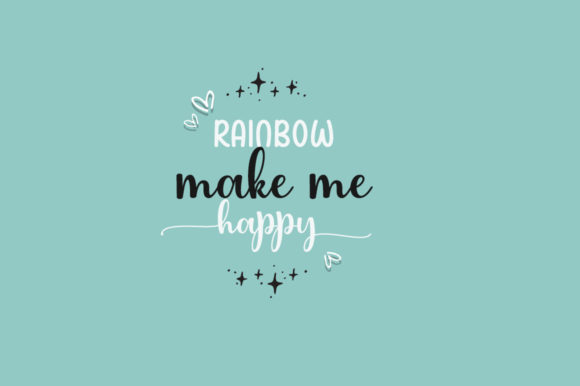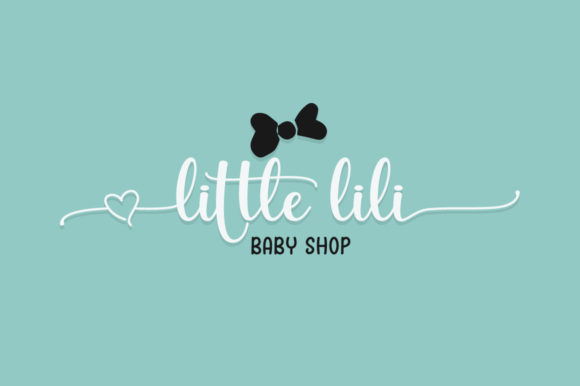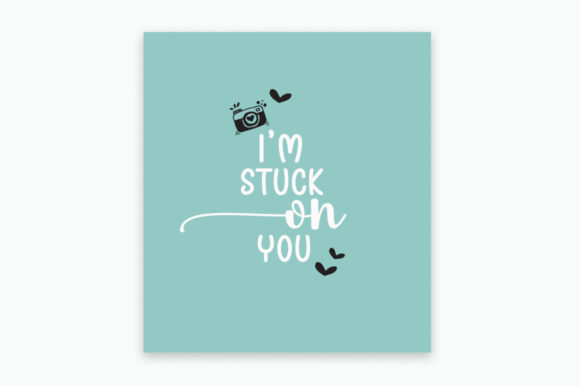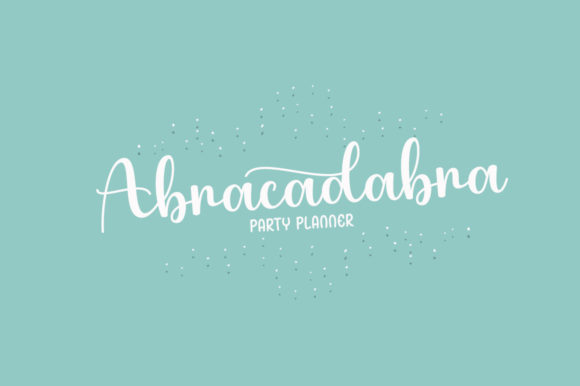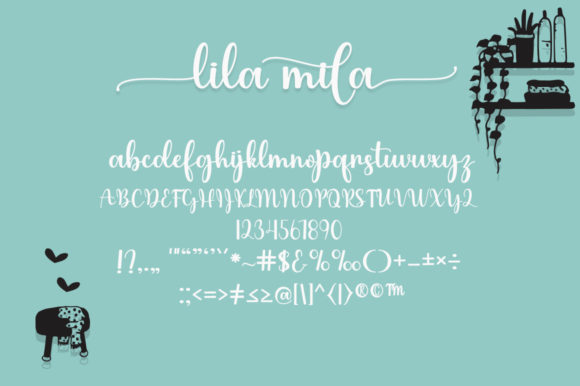
Introduction to Lilamila Font
As a designer, there’s nothing quite like the thrill of staring at a blank canvas, waiting for inspiration to strike. You’ve got a creative project in mind, but the perfect font is still elusive. That’s where the Lilamila Font comes in – a luxurious duo font that combines the elegance of script with the sophistication of sans serif.
Whether you’re working on a high-end branding project or a beautiful wedding invitation, the Lilamila Font is the perfect design resource to elevate your work. Its PUA encoding makes it easy to access all the amazing glyphs and ligatures, giving you complete control over your creative vision.
Key Features of Lilamila Font
- High-quality design for creative projects: The Lilamila Font is perfect for designers and artists looking for a unique and stylish font to enhance their work.
- Large character set: The Lilamila Font includes a wide range of characters, including Latin, Cyrillic, and Greek alphabets, making it suitable for a variety of languages.
- Unique, hand-drawn style: The Lilamila Font features a distinctive, hand-drawn style that adds a touch of elegance and sophistication to any design project.
Honest Review: Lilamila Font
As a designer, I’m always on the lookout for high-quality fonts that can elevate my creative project. Recently, I came across the Lilamila Font, and I was excited to give it a try.
What works well is the font’s versatility – it’s perfect for creating a playful, yet elegant feel in my designs. The Lilamila Font is available for free download, which is a definite bonus. I appreciate how transparent the background is, making it easy to layer and blend with other design elements.
- ✨ High-quality design with crisp lines and smooth curves
One limitation I noticed is that the font may not be suitable for formal or corporate projects, as it leans more towards a whimsical feel. Additionally, some characters may require tweaking for optimal display on certain screens.
Overall, I’m impressed with the Lilamila Font. While it may have its limitations, it’s a fantastic choice for creative projects where you want to add a touch of personality and charm. I’d definitely recommend it as a design resource for any project where a playful feel is desired.
Lilamila Font is a high-quality, free download design resource ideal for creative projects. Its transparent background makes it perfect for overlaying text on images or creating visually appealing graphics.
Experiment with different font sizes, colors, and styles to create unique and eye-catching designs. Combine Lilamila Font with other design elements to create visually appealing graphics.
Common Use Cases for Lilamila Font
Lilamila Font is perfect for creating social media graphics, blog posts, and other digital content. Its transparent background makes it ideal for overlaying text on images or creating visually appealing graphics.